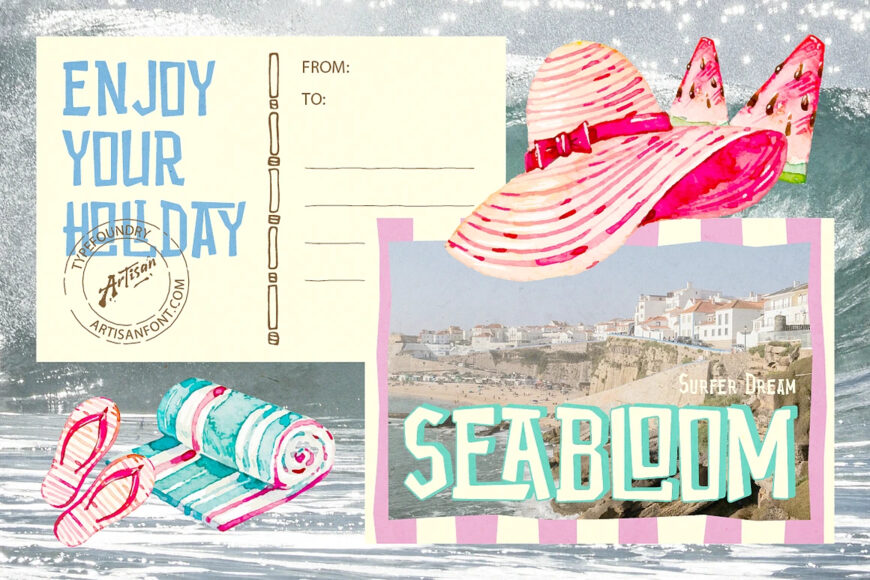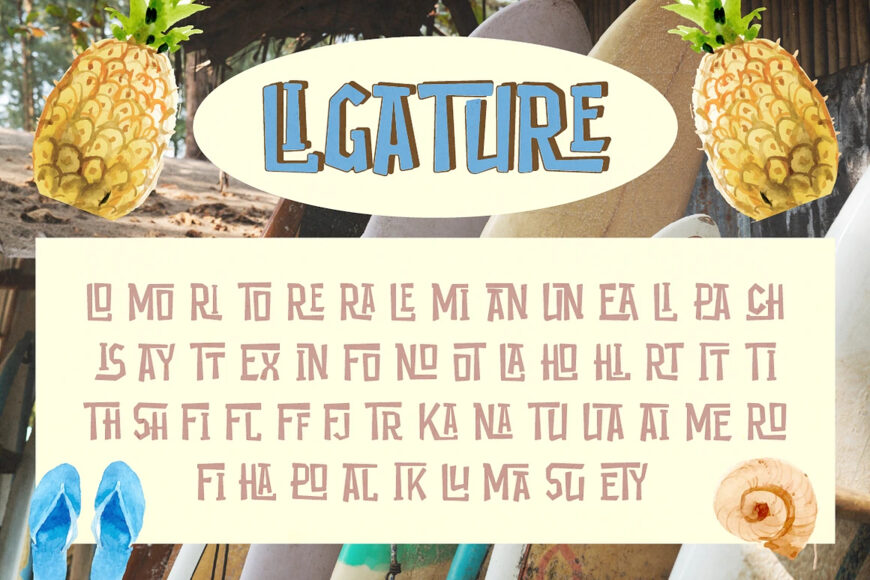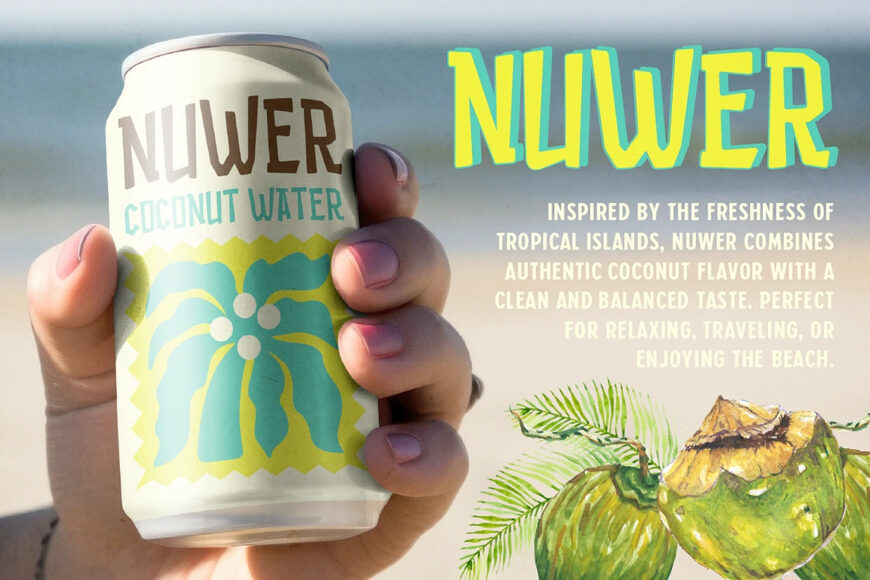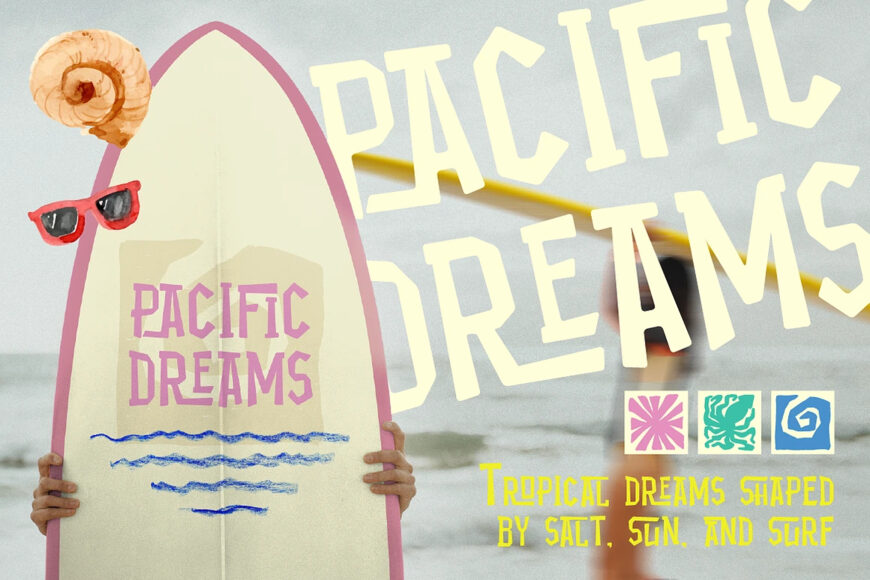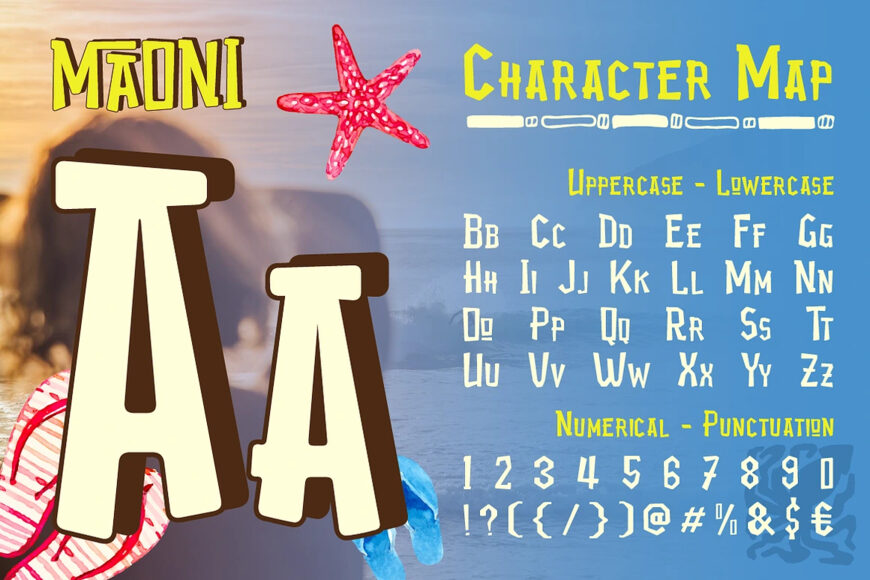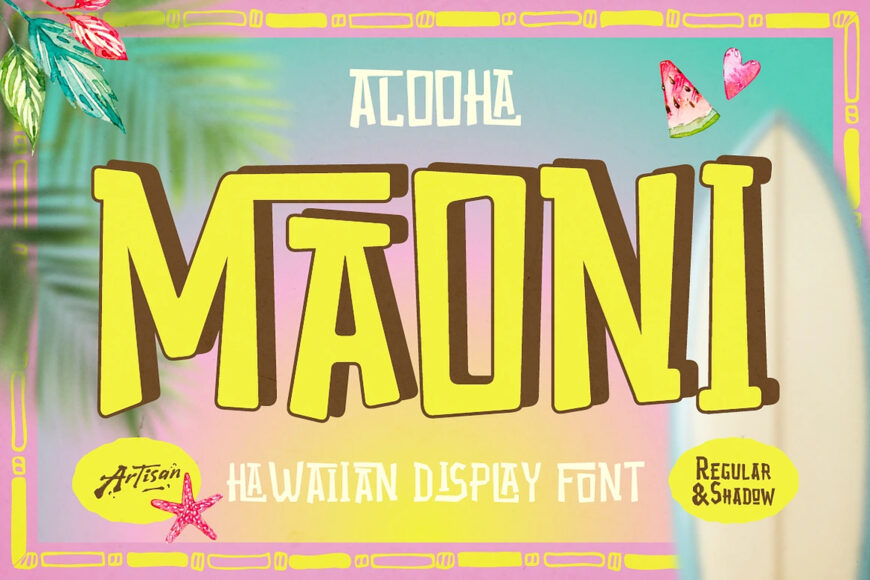
Maoni Font
Bring instant summer energy and salty beach vibes to your layout with Maoni, a playful Hawaiian display font handcrafted by Artisan Font. Inspired by tropical surf culture, sunny days, and island adventures, Maoni packs a bold, fun, and laid-back personality that makes your designs feel like an endless summer vacation.
It comes in two stackable styles—Regular and Shadow—giving you that effortlessly cool dimensional look in just a few clicks. Whether you’re crafting refreshing drink packaging, summer event posters, surf shop logos, or beachy merch, Maoni is built to make your headers pop without taking itself too seriously.